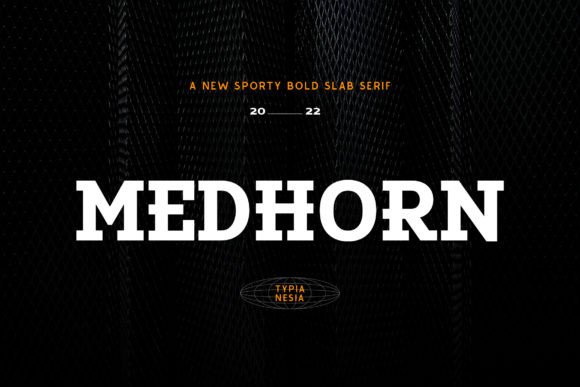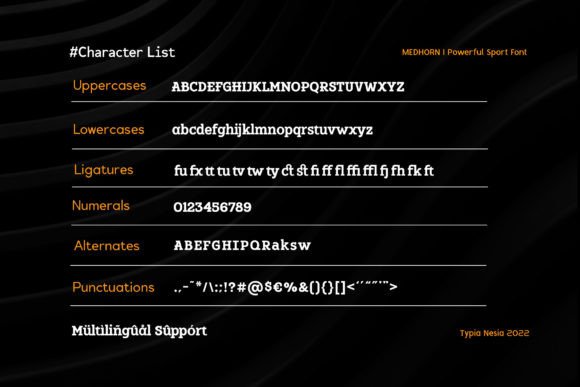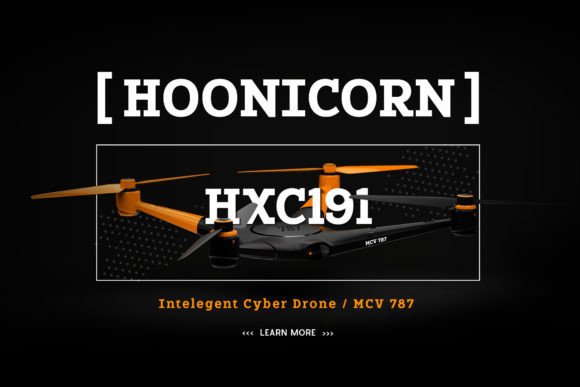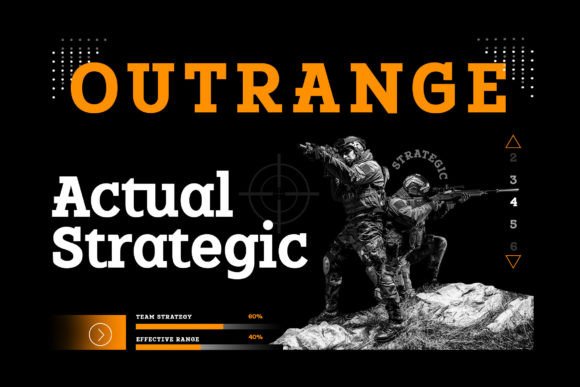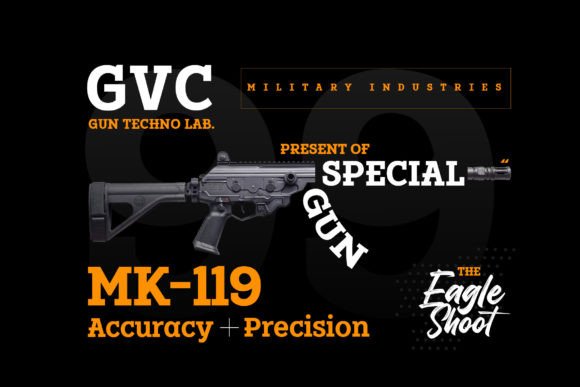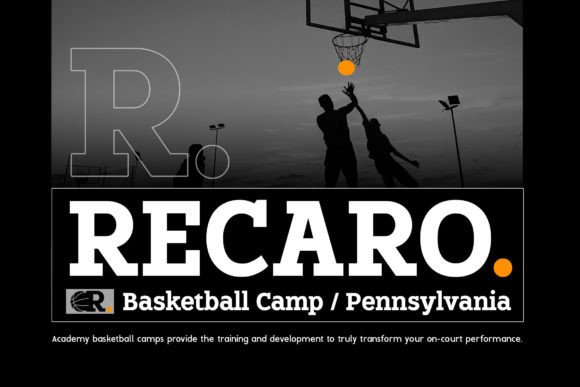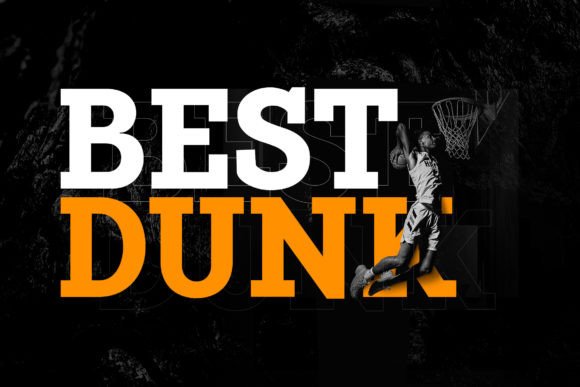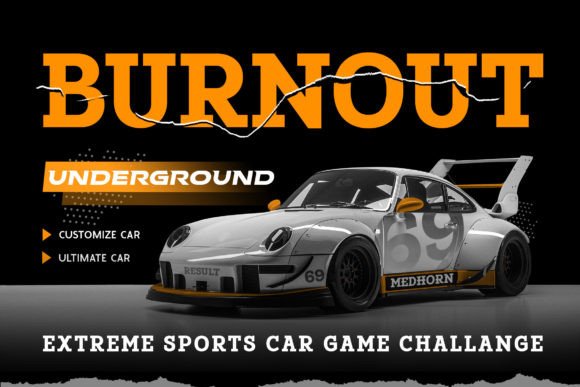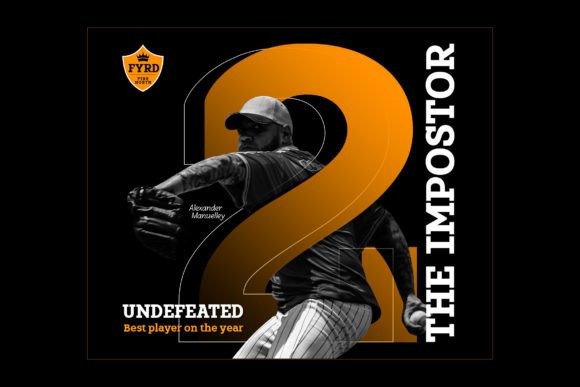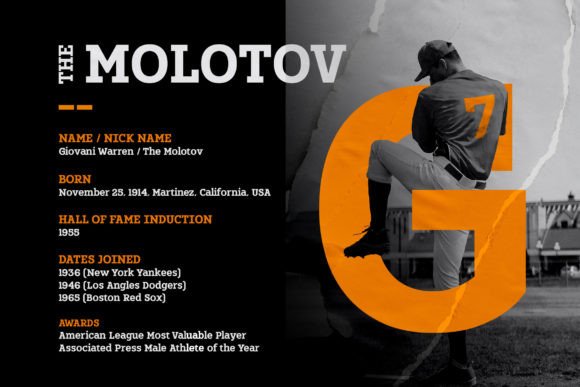
Medhorn
Medhorn: A Modern Sports Slab Serif Font
Medhorn is a modern sports slab serif font that combines versatile design with easy accessibility through PUA encoding. This dynamic typeface is perfect for various applications, from branding and logos to game design and editorial projects.
Key Features of Medhorn
• Modern Sports Design: Offers dynamic, athletic letterforms.
• PUA Encoded: Provides easy access to all glyphs and swashes[4].
• Versatile Style: Adapts to both modern and vintage designs.
• Wide Application: Suits numerous design contexts.
Best Uses for Medhorn
Thanks to its versatile characteristics, Medhorn works especially well for:
When using Medhorn in your designs, keep these tips in mind:
• Access special characters through PUA encoding for enhanced designs[4].
• Use different sizes to highlight its sporty features.
• Experiment with swashes and alternates for unique looks.
• Let its versatility enhance both modern and vintage projects.
To sum up, Medhorn is an excellent choice for designers seeking a modern sports slab serif font with extensive functionality. Its PUA encoding ensures easy access to all special characters, while its versatile design makes it perfect for various projects. Whether you’re creating sports branding, designing game interfaces, or developing editorial content, Medhorn offers the perfect blend of modern style and athletic character.
Furthermore, Medhorn’s distinctive design allows it to shine in contexts where both sports appeal and versatility are key. From adventure brands to e-sport designs, this font can elevate your projects with its dynamic style. Also, its modern yet adaptable appearance works particularly well in designs that aim to make an athletic impact.
In conclusion, Medhorn truly captures the essence of modern sports design in slab serif typography. Its versatility across different applications shows how well it can serve various creative needs. Therefore, for those wanting to add a touch of athletic sophistication to their work, Medhorn can enhance any design with its distinctive style. Ultimately, it’s perfect for designers aiming to make a sporty, modern impact across a wide range of creative projects.